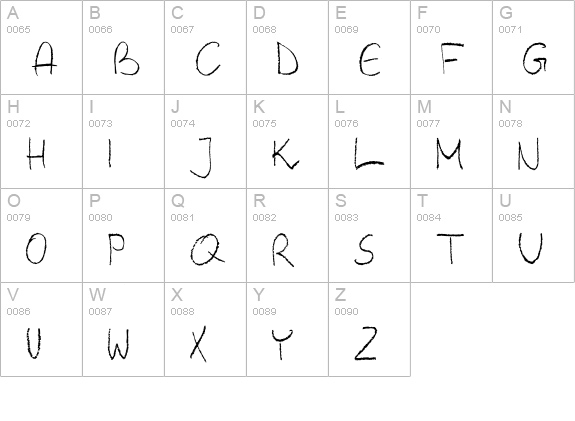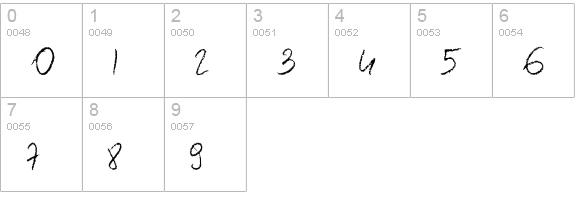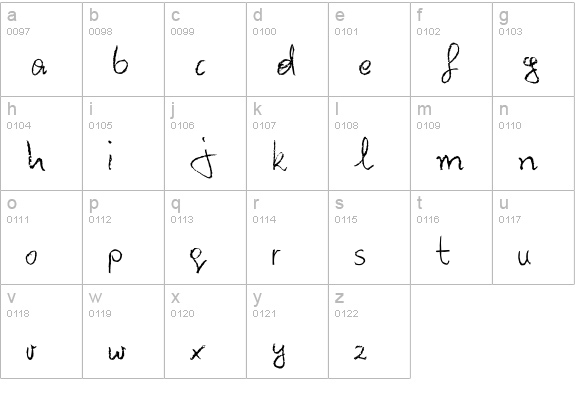
Barbarjowe Pisanie Font Details
Barbarjowe Pisanie font is a unique and creative typeface that exudes a bold and dynamic energy. With its hand-drawn style and rough edges, this font brings a sense of raw authenticity to any design project. Whether you're looking to add a touch of whimsy to a poster, invitation, or logo, Barbarjowe Pisanie is the perfect choice. The free-spirited nature of Barbarjowe Pisanie font makes it versatile and suitable for a wide range of design applications. Its playful yet rugged appearance gives your text a distinctive character that will make it stand out from the crowd. Best of all, Barbarjowe Pisanie font is freely available to download at FontsMarket.com. So go ahead and unleash your creativity with this eye-catching and expressive typeface that is sure to make a statement in your designs.